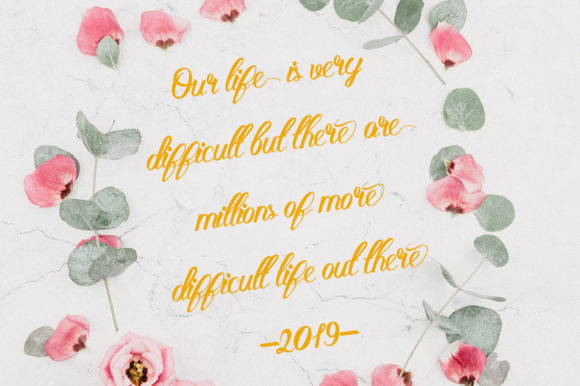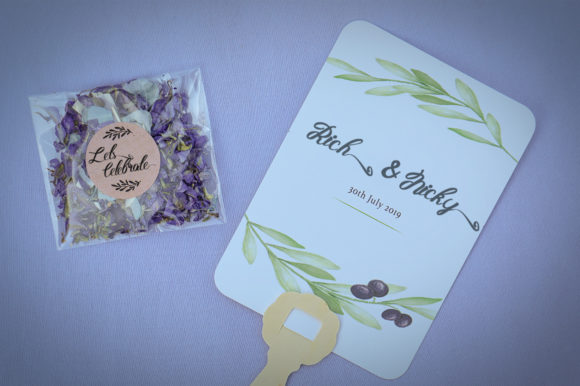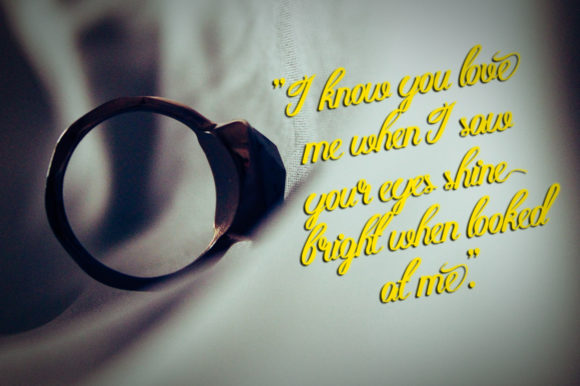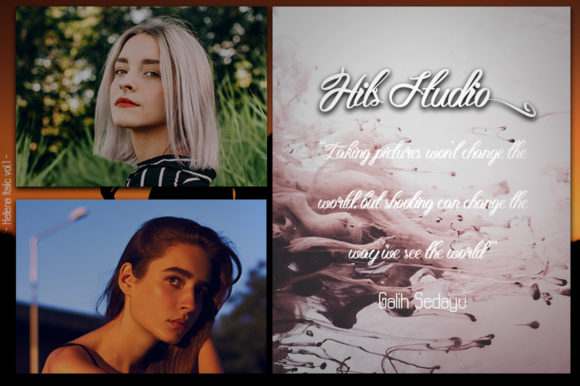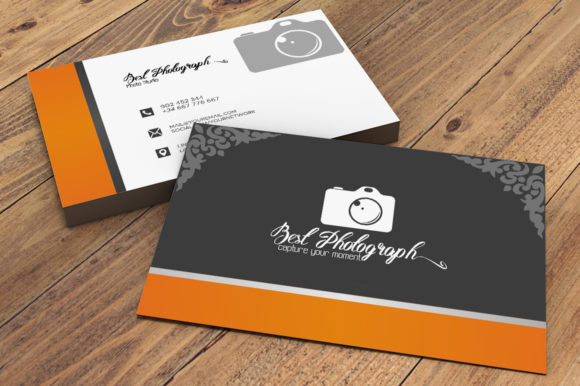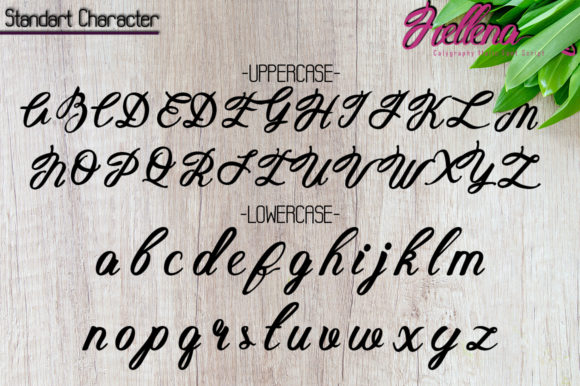
Hellena Font: A Beautiful and Modern Script Font for Your Creative Projects
Hellena is a stunning and modern script font that embodies the essence of elegance and sophistication. Designed to celebrate the sweeter things in life, this versatile font is perfect for designers and crafters looking to add a touch of charm to their creative projects. In this article, we’ll dive into the world of Hellena Font, exploring its features, benefits, and uses, as well as provide tips on how to make the most of this beautiful script font.
The Story Behind Hellena Font
Hellena Font is a brainchild of talented designers who aimed to create a font that exudes warmth, friendliness, and approachability. The font’s design is inspired by the beauty of handwritten scripts, with flowing lines and curves that give it a sense of movement and fluidity. Hellena is more than just a font – it’s an expression of creativity and individuality, perfect for those who want to add a personal touch to their designs.
Key Features of Hellena Font
Hellena Font boasts a range of features that make it a standout in the world of script fonts. Some of its key features include:
• Beautifully crafted letters: Each letter in Hellena is carefully designed to be unique and visually appealing, with a focus on elegance and sophistication.
• Versatile and adaptable: Hellena can be used for a wide range of projects, from wedding invitations and branding materials to social media graphics and blog posts.
• Modern and trendy: Hellena’s modern design makes it perfect for designers and crafters who want to stay on top of the latest trends.
• Easy to read: Despite its ornate design, Hellena is surprisingly easy to read, making it perfect for body text and longer blocks of content.
Benefits of Using Hellena Font
• Adds a touch of elegance: Hellena’s sophisticated design adds a touch of elegance to any project, making it perfect for high-end brands and luxury products.
• Stand out from the crowd: With Hellena, you can create unique and eye-catching designs that stand out from the crowd.
Using Hellena Font in Your Designs
• Pair it with bold fonts: Combine Hellena with bold, sans-serif fonts for a striking contrast that adds visual interest to your designs.
• Use it for headings and titles: Hellena’s ornate design makes it perfect for headings and titles, adding a touch of elegance and sophistication to your designs.
• Experiment with colors and textures: Don’t be afraid to experiment with different colors and textures to add depth and visual interest to your designs.
In conclusion, Hellena Font is a beautiful and modern script font that celebrates the sweeter things in life. With its versatile charm and elegant design, it’s perfect for designers and crafters looking to add a touch of sophistication to their creative projects. Whether you’re looking to create wedding invitations, branding materials, or social media graphics, Hellena is an excellent choice. So why not give Hellena a try and see how it can elevate your designs to the next level?